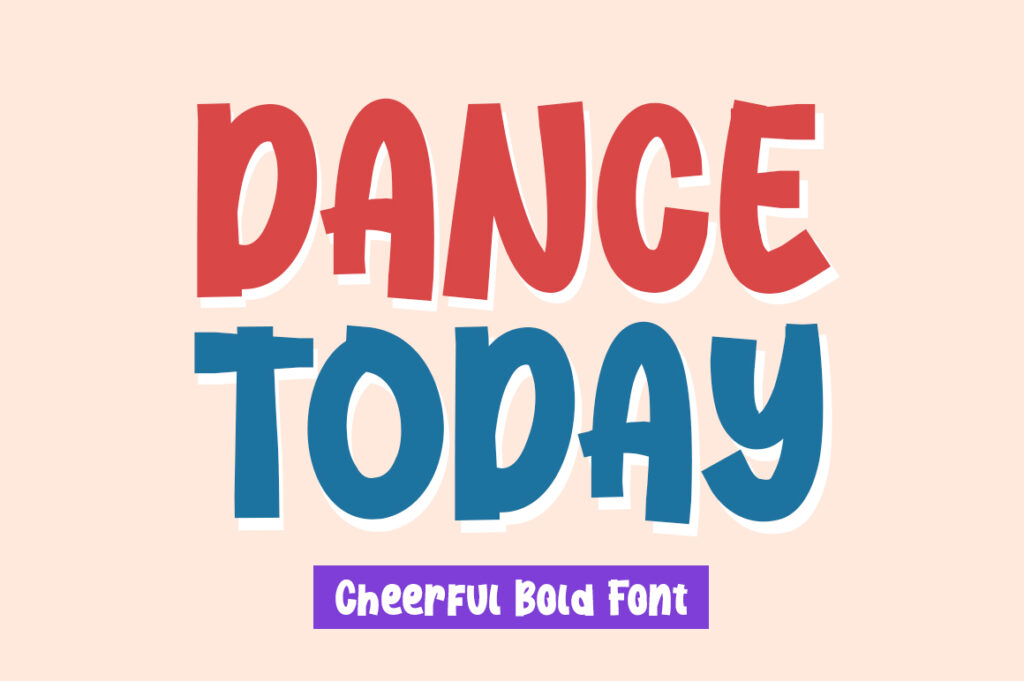
It’s a sweet and cool display font that will add a unique style to your next design project! This font has a bold and cheerful character, a fun unique character suitable for use in various design projects.